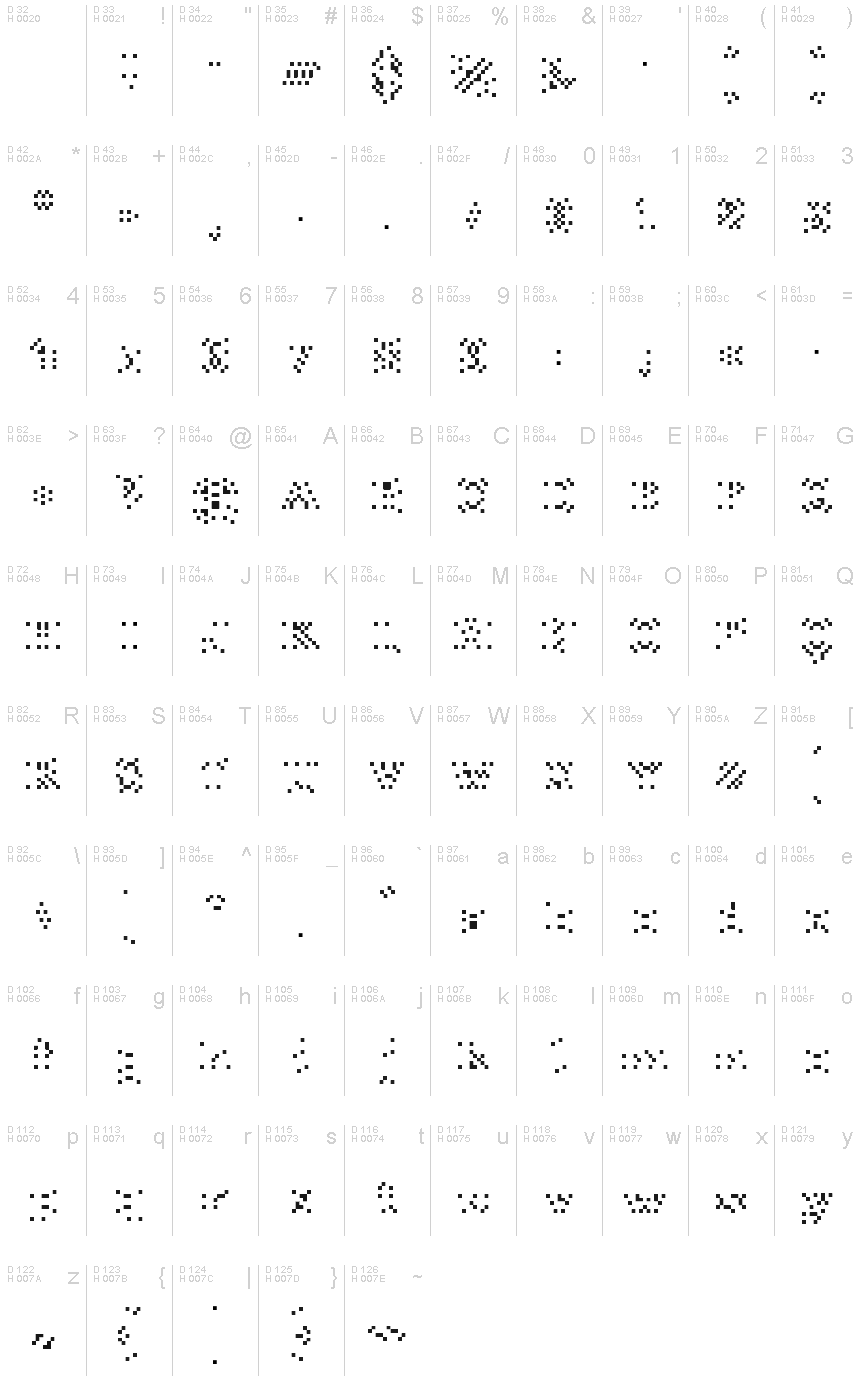
ArpegiusAlias
This was another attempt at a layered bitmap font, but this time with an attempt at an anti alias effect. The alias font is supposed to be layered under the solid font.